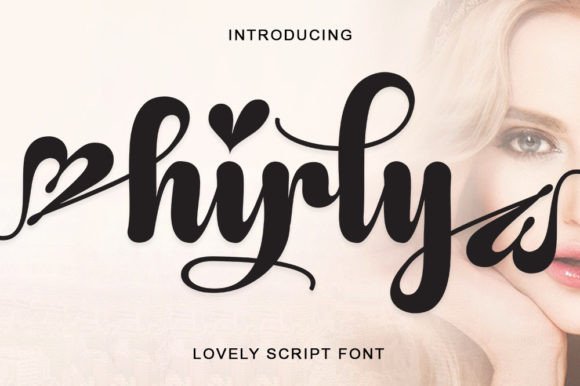
Introducing Hirly Font: The Pinnacle of Elegance and Sophistication for Your Design Endeavors
In a world teeming with ordinary and mundane fonts, Hirly Font emerges as an exquisite gem, radiating luminescence and grace. This meticulously crafted script font, born from the creative mind of Ws Studio, is an emblem of unparalleled beauty and charm. Hirly's delicate strokes and enchanting curves evoke a sense of harmony and elegance, making it the perfect choice for discerning designers seeking to elevate their projects.
Embrace the Allure of Hirly: A Journey Through Enchantment
Hirly Font captivates with its alluring presence, drawing you into a realm of timeless aesthetics. Its smooth, flowing lines mimic the graceful dance of a feather in the wind, exuding a sense of effortless elegance. The font's subtle variations in thickness create a captivating rhythm, lending depth and character to every letterform. With Hirly, your designs will emanate an aura of refinement, leaving a lasting impression on your audience.
Unleash Your Creativity with Hirly: A Font for Limitless Expression
Hirly Font presents an infinite canvas for your creative aspirations. Whether you're crafting wedding invitations that exude romance, designing logos that radiate professionalism, or creating social media posts that captivate your audience, Hirly seamlessly adapts to your vision. Its versatility knows no bounds, allowing you to explore a myriad of design possibilities and bring your ideas to life with stunning results.
Experience the Simplicity of Use with Hirly: A Font That's Effortlessly Yours